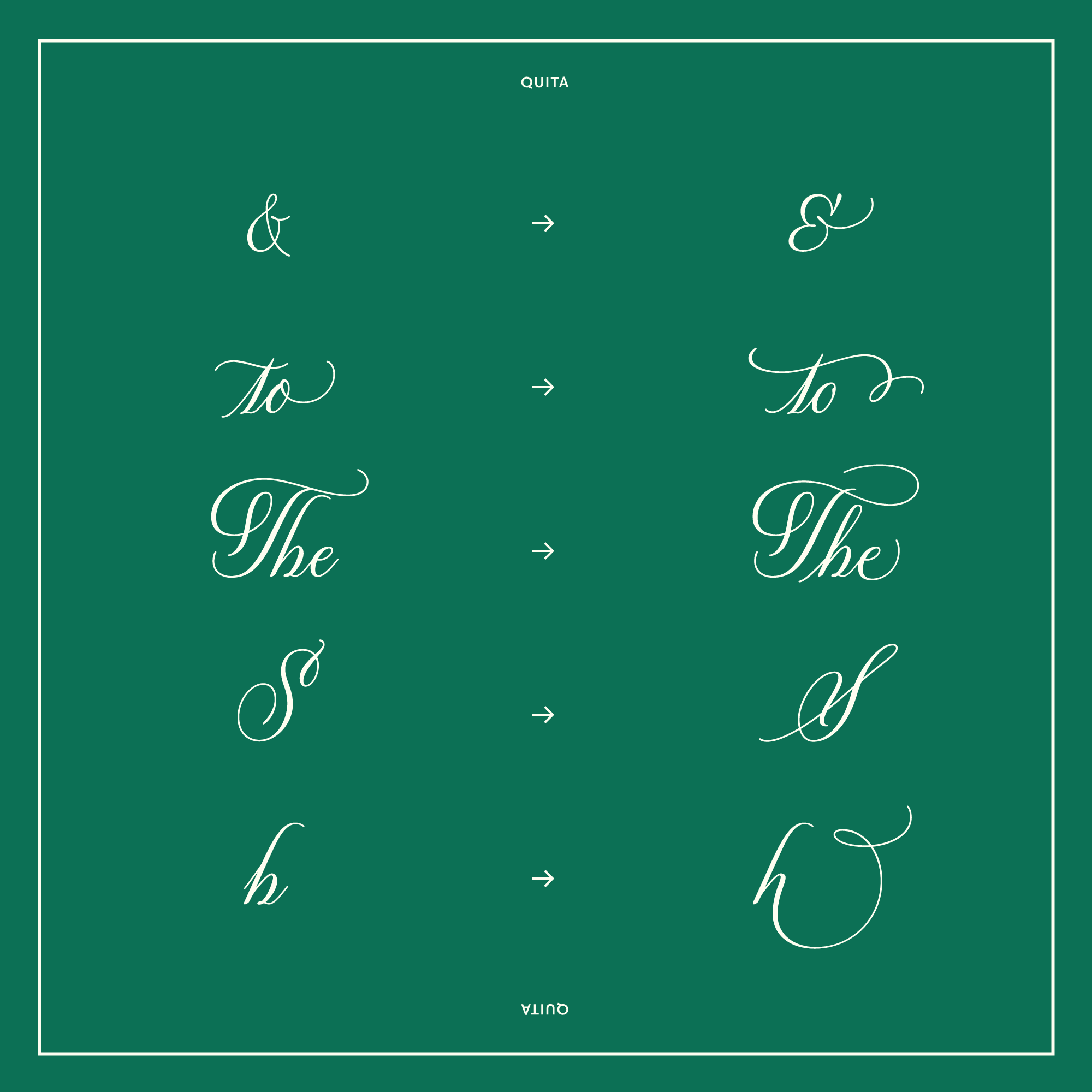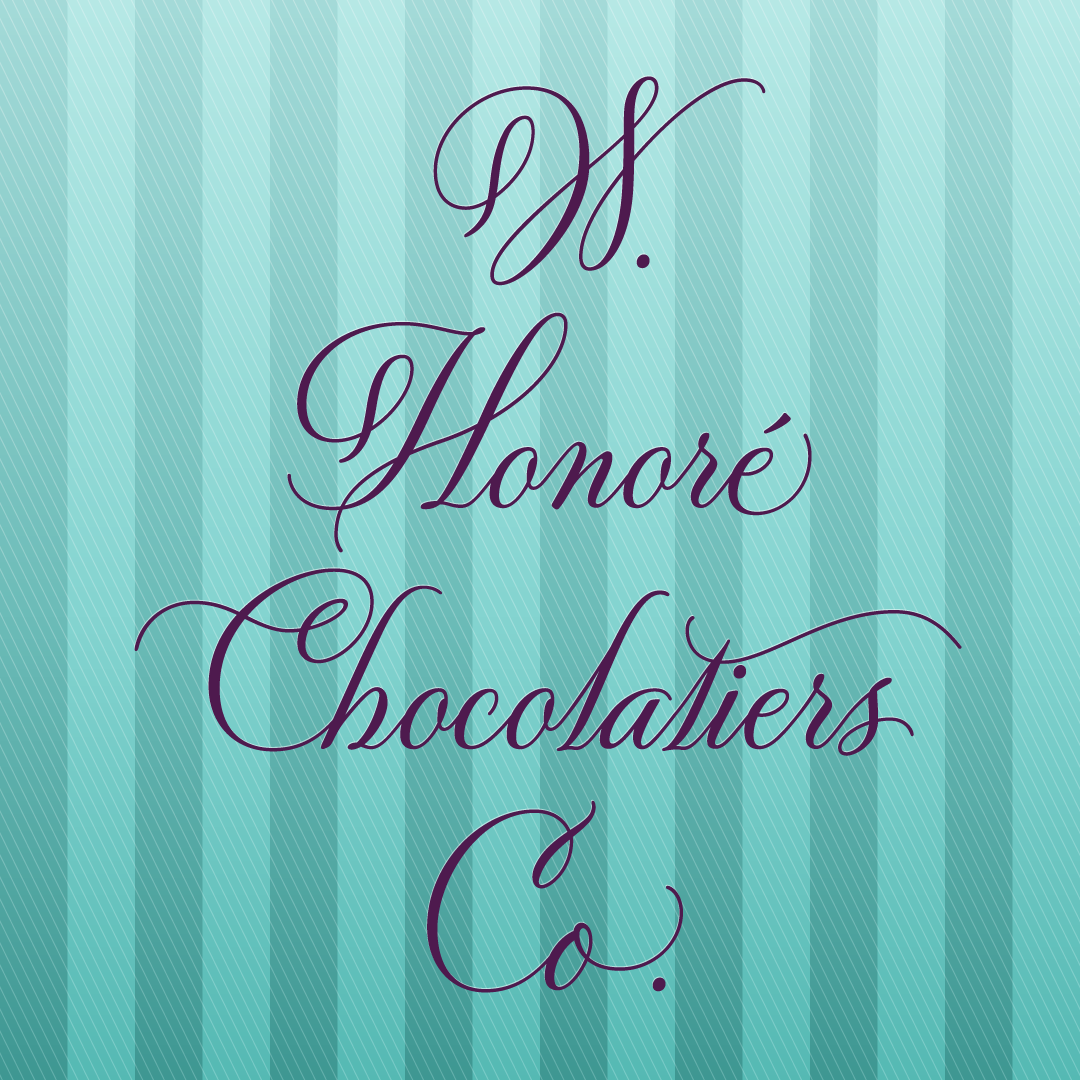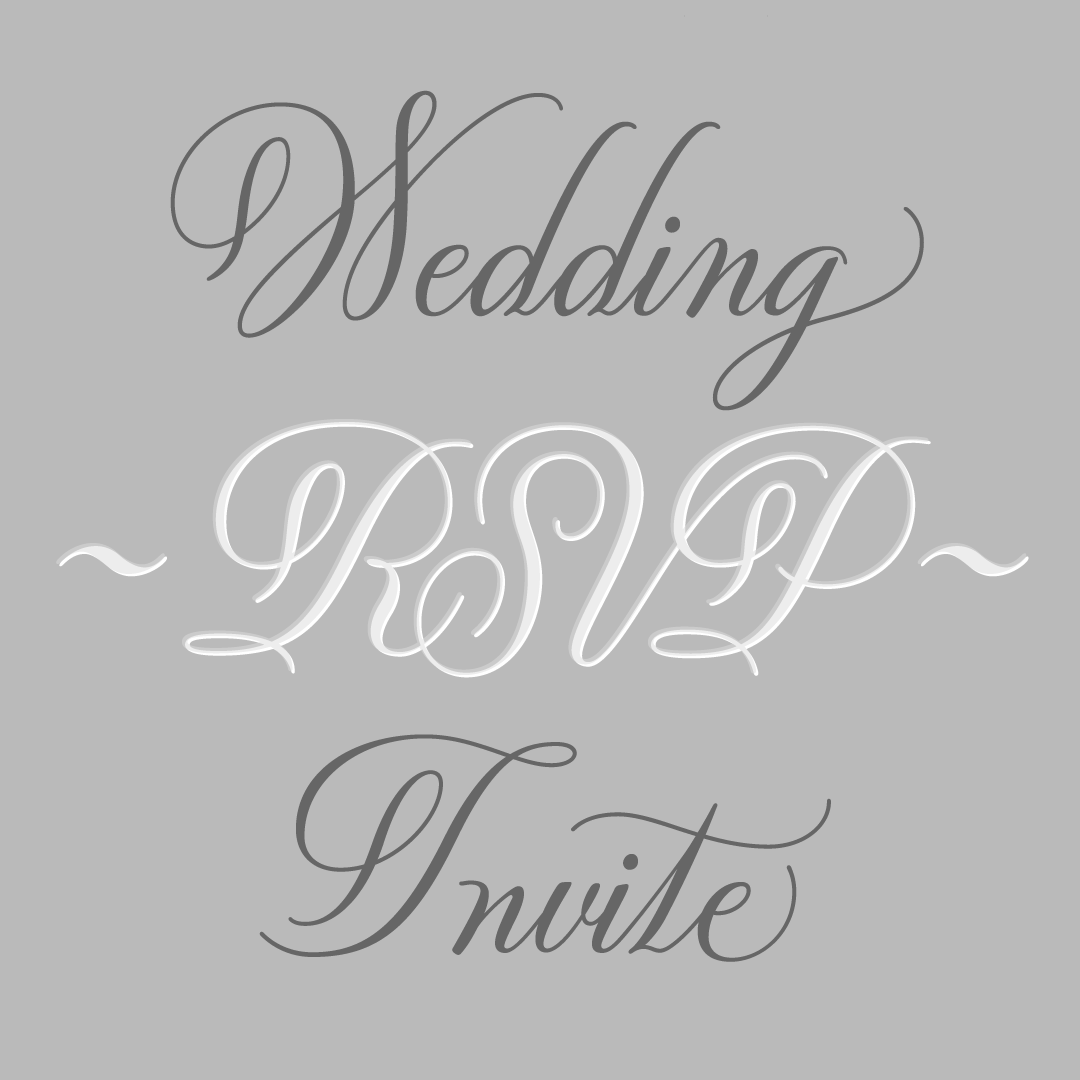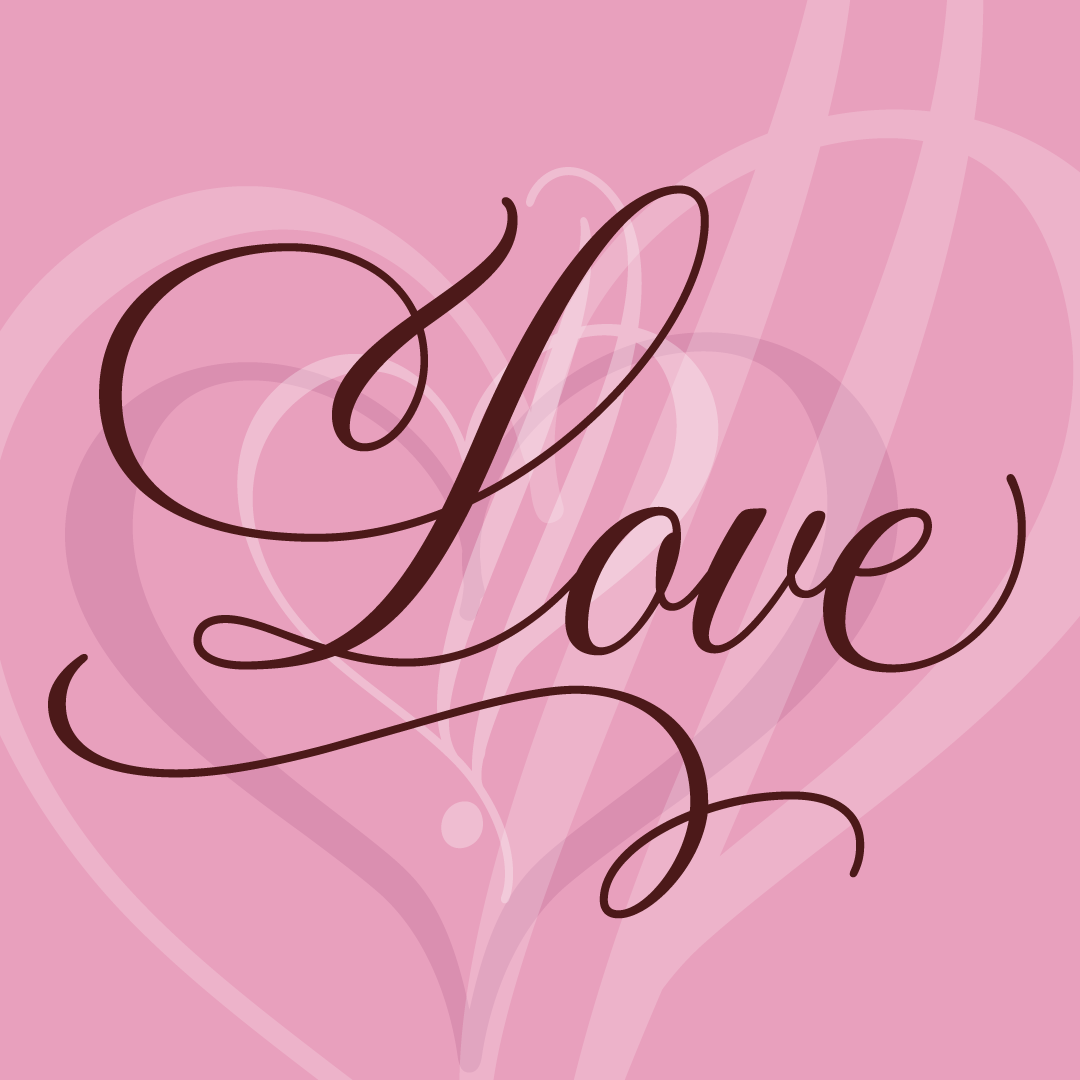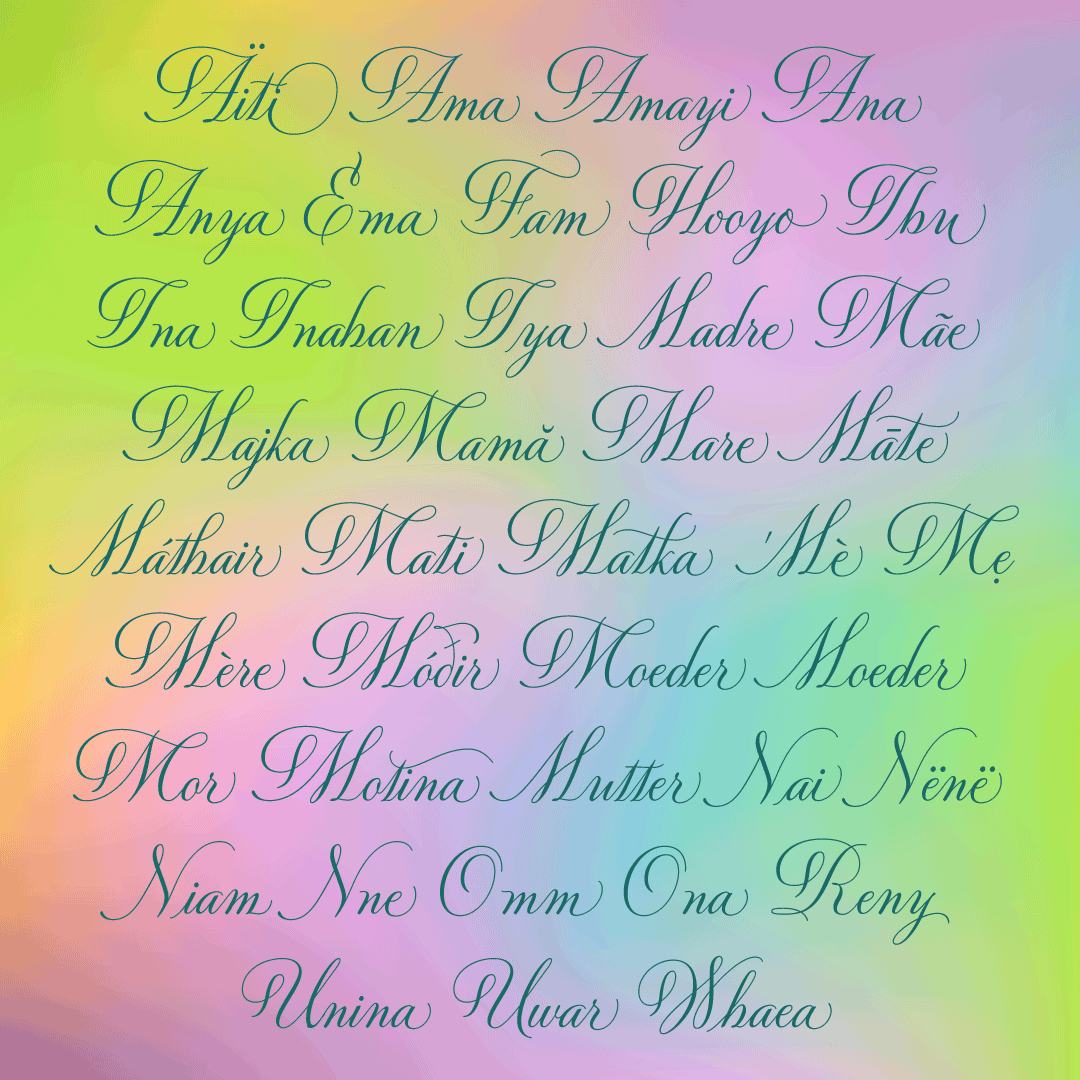
Quita®
A luxurious pointed-pen script.
Designed by Xandra Y. Zamora
Quita is a luxurious script penned by master calligrapher and best-kept Hollywood secret Xandra Y. Zamora. Her expertise with the pointed pen is apparent in the confident curves and magnificent flourishes seen throughout the typeface.
The unexpected curve at the end of the swashes present in the many of Quita’s capital letters — and the name Quita (pron. kee-tah) itself, short for “chiquita” — were inspired by a beloved cat with a broken tail that Xandra once had.
Special attention was paid to the inherent rhythm of Xandra’s handwritten specimens and alternate letterforms were included to invisibly achieve harmonious spacing among any combination of letters.
In visually translating Quita into a working typeface, Delve Fonts accurately captured and faithfully reproduced the vivacious letterforms as a connected script using OpenType features that are automatically applied as you type, giving you great typesetting right out of the box. You may further customize your message by applying some of the many stylistic alternates, discretionary ligatures, and swash variants available in Quita’s character set.
Whether you are creating a menu, a wedding invitation, food packaging, or branding for luxury goods, Quita lends an artistic elegance and sense of refinement to any setting. You will take delight in its inherent beauty, its convenient features, and its reliability. As for localization, Quita supports 312 languages, including: Czech, Danish, Turkish, Polish, and Vietnamese.
Additional features include: Kerning, Contextual Alternates, Stylistic Sets, Oldstyle Figures, Ordinals, Case-Sensitive Forms, Fractions, Superscript, Subscript, Localized Forms, and Swash.